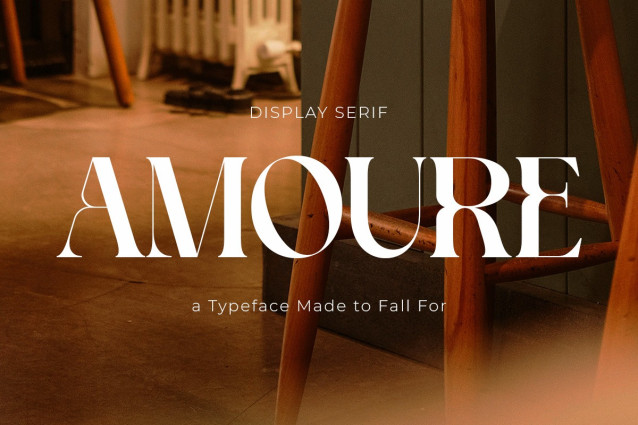
Amoure Font
Amoure Font is a high-contrast display serif font that radiates elegance, sophistication, and romantic charm. Inspired by fashion editorials and timeless love stories, this typeface is made for designers who seek to elevate their visuals with emotional depth and refined aesthetics.
Crafted with graceful long serifs, sculpted curves, and dramatic contrast, Amoure stands out in logos, wedding invitations, magazine headlines, and upscale packaging. Whether you’re designing for a luxury brand, a personal blog, or a beauty product launch — MOURE delivers unforgettable typographic presence.